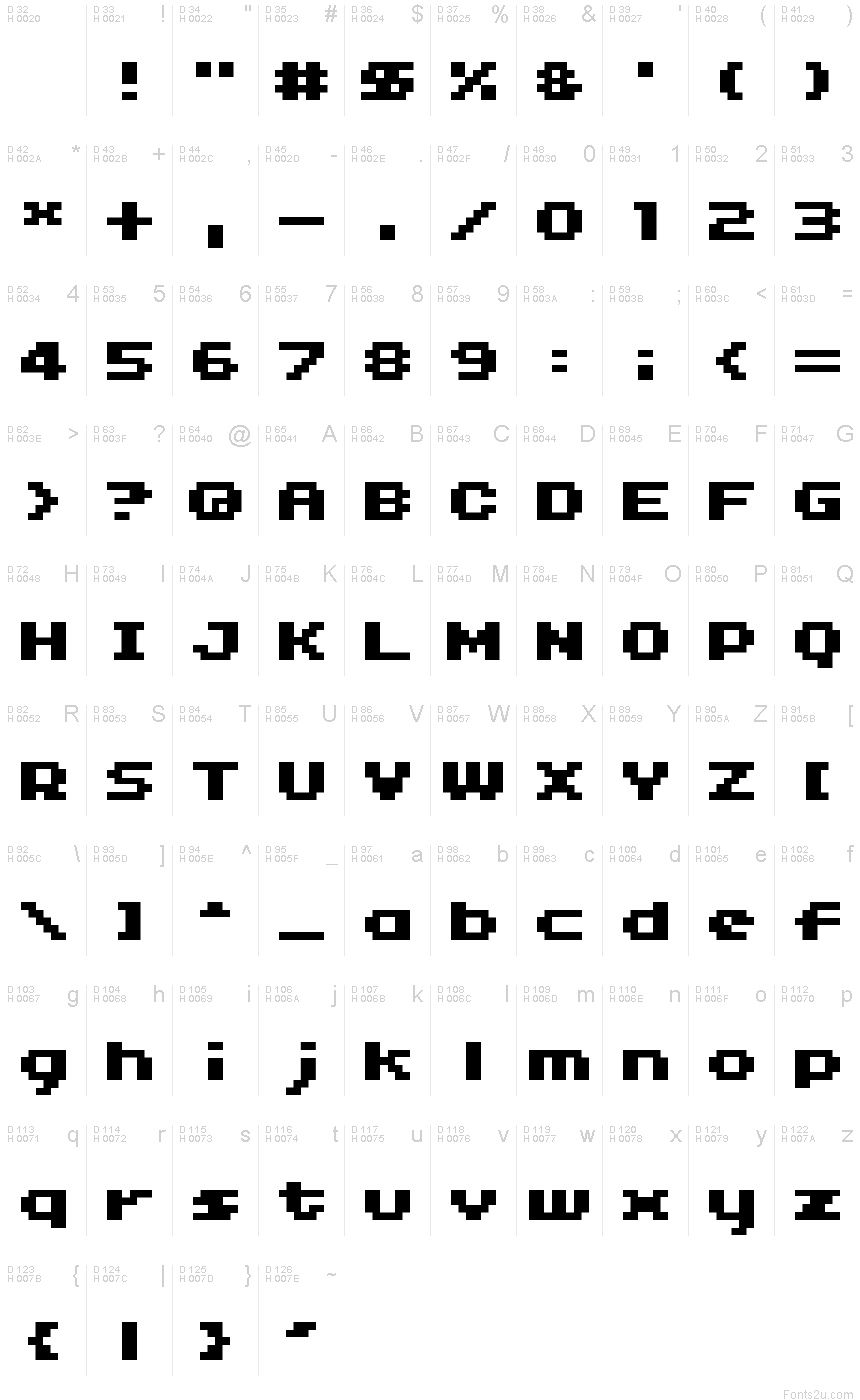
04b11
04b11 font by Yuji Oshimoÿo is a free pixel bitmap typeface that snaps every character into a tight, blocky grid. Its chunky, square forms and consistent spacing make text feel like it’s been carved out of a low‑resolution screen—crisp, minimal, and instantly readable at small sizes. There’s no fake smoothness here: just honest, hard-edged pixels that give interfaces and titles a strong retro-tech pulse.
Using 04b11, you can lock in that pure 8‑bit energy for game HUDs, score counters, UI labels, stream overlays, glitch art posters, and minimalist logotypes. This free font shines when used in all caps and kept relatively small, where the grid texture stays sharp and authentic. Pair it with a clean geometric sans in body copy to balance its blocky character without diluting the nostalgic feel.